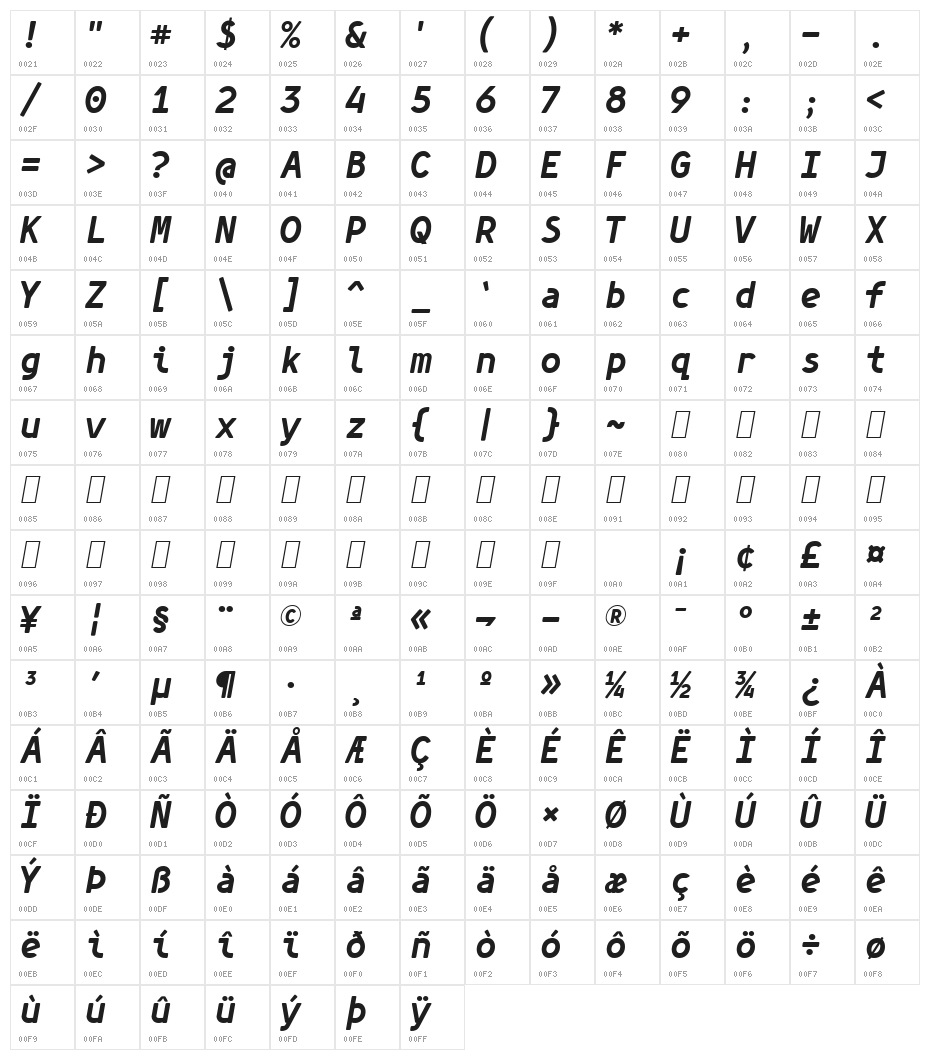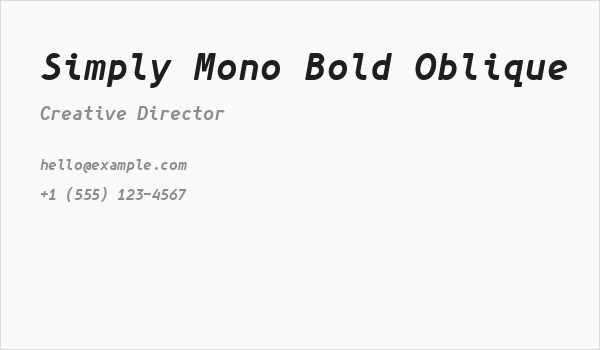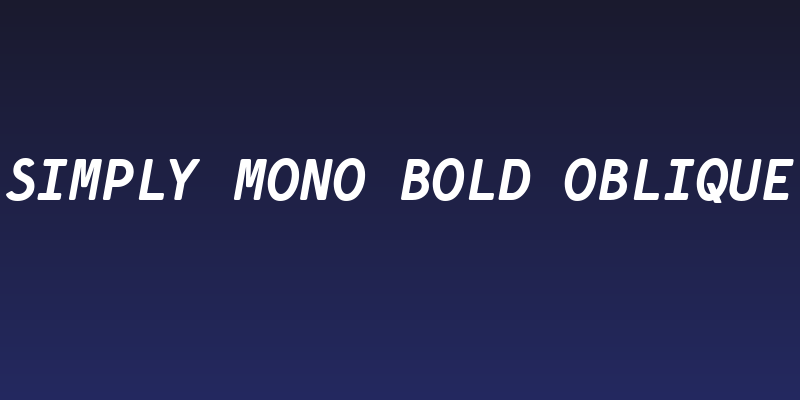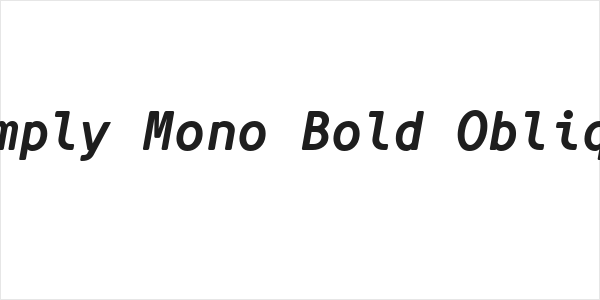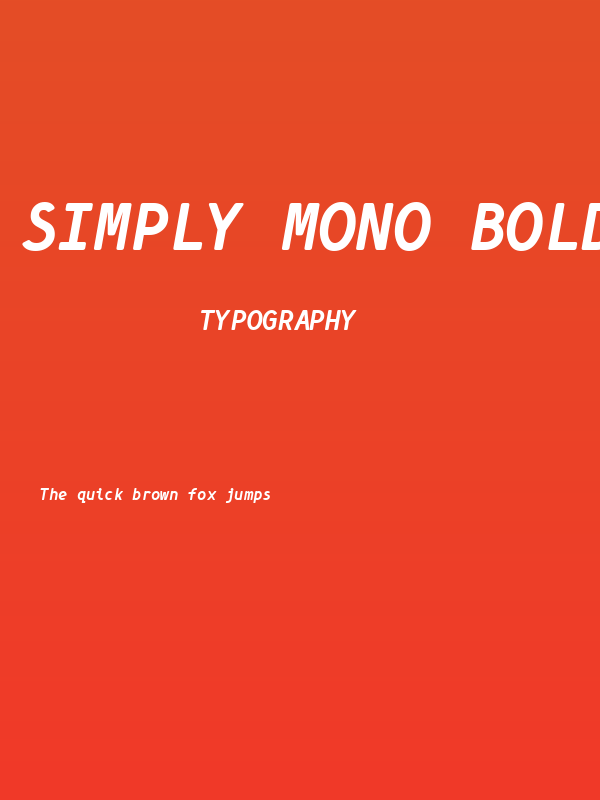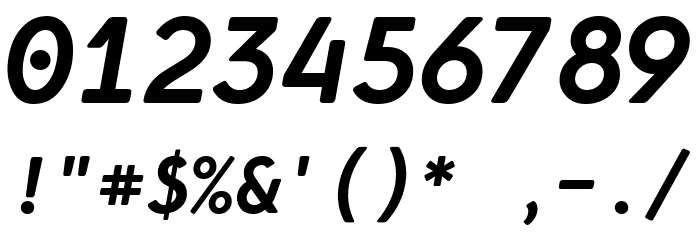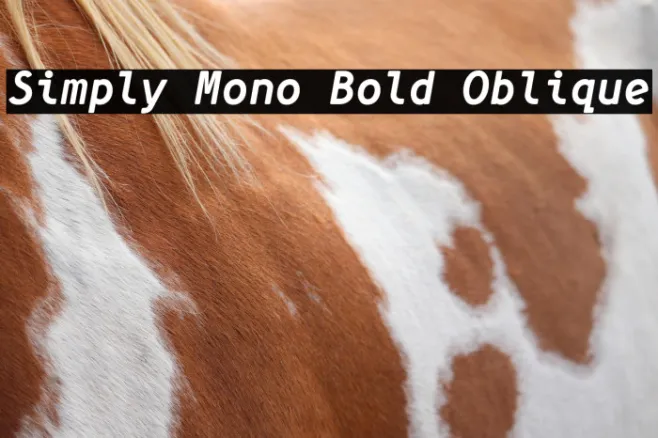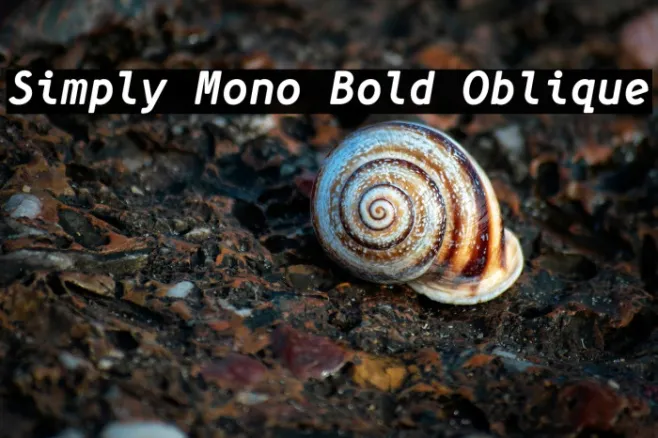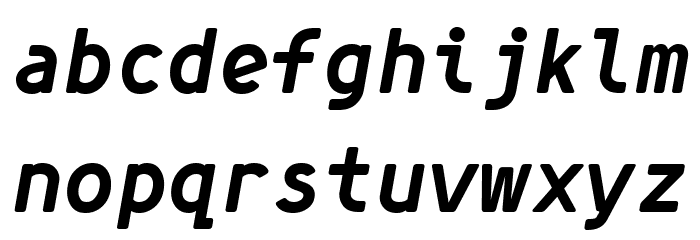
Simply Mono Bold Oblique Font
Simply Mono Bold Oblique Description
This font features a bold and oblique style, characterized by its monospaced design. Each character is evenly spaced, providing a uniform appearance that is ideal for coding and technical documents. The slanted orientation adds a dynamic feel, while the bold weight ensures readability and emphasis. The font maintains a clean and modern aesthetic, with smooth curves and consistent stroke widths. It includes a full set of uppercase and lowercase letters, numerals, and a variety of special characters, making it versatile for various applications.
| Use Case | Coding, Technical documentation, Headlines |
| Proposed Projects | Ideal for coding, technical documentation, and any project requiring a modern, monospaced typeface. |